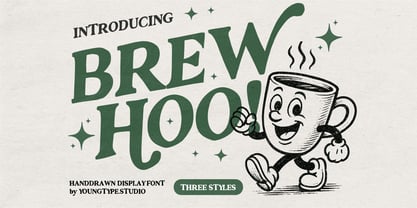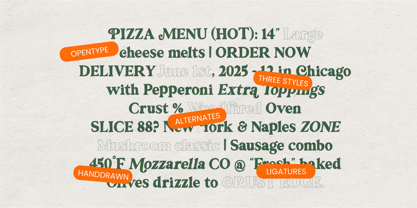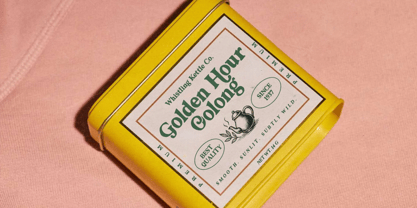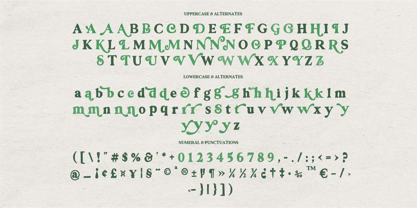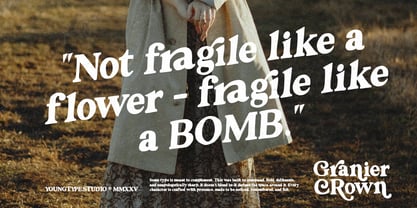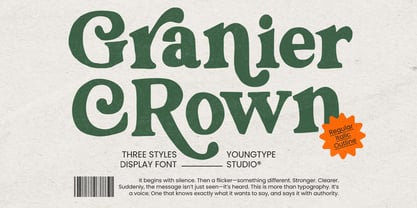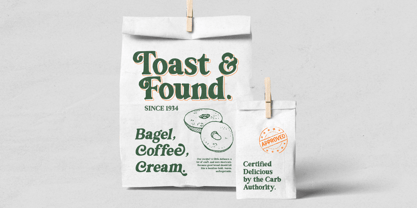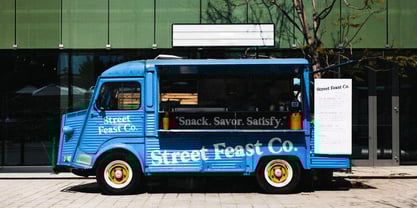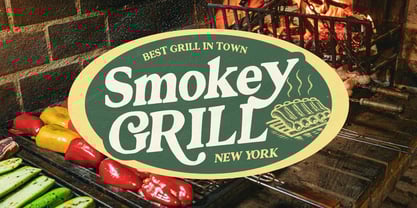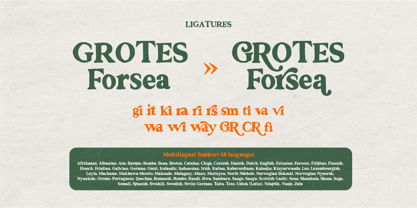
Granier Crown
by Youngtype
The Granier Crown Font Family was designed by Naufal Paramata and published by Youngtype. Granier Crown contains 3 styles and family package options. More about this family
Granier Crown is a hand brush font made with brush and ink which is equipped with 3 models Regular, Italic, Outline. This typeface is ideal for use in bold watercolor designs or handwritten styles, such as blog titles, posters, wedding elements, t-shirts, clothing, book covers, business cards, greeting cards, branding, merchandise, etc.
Contains full set :
• Uppercase
• Lowercase
• Ligatures
• Alternates
• Punctuation
• number
• multilingual support.